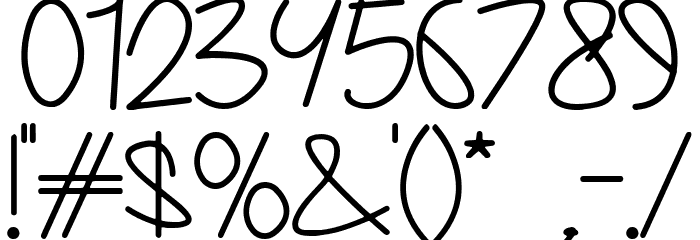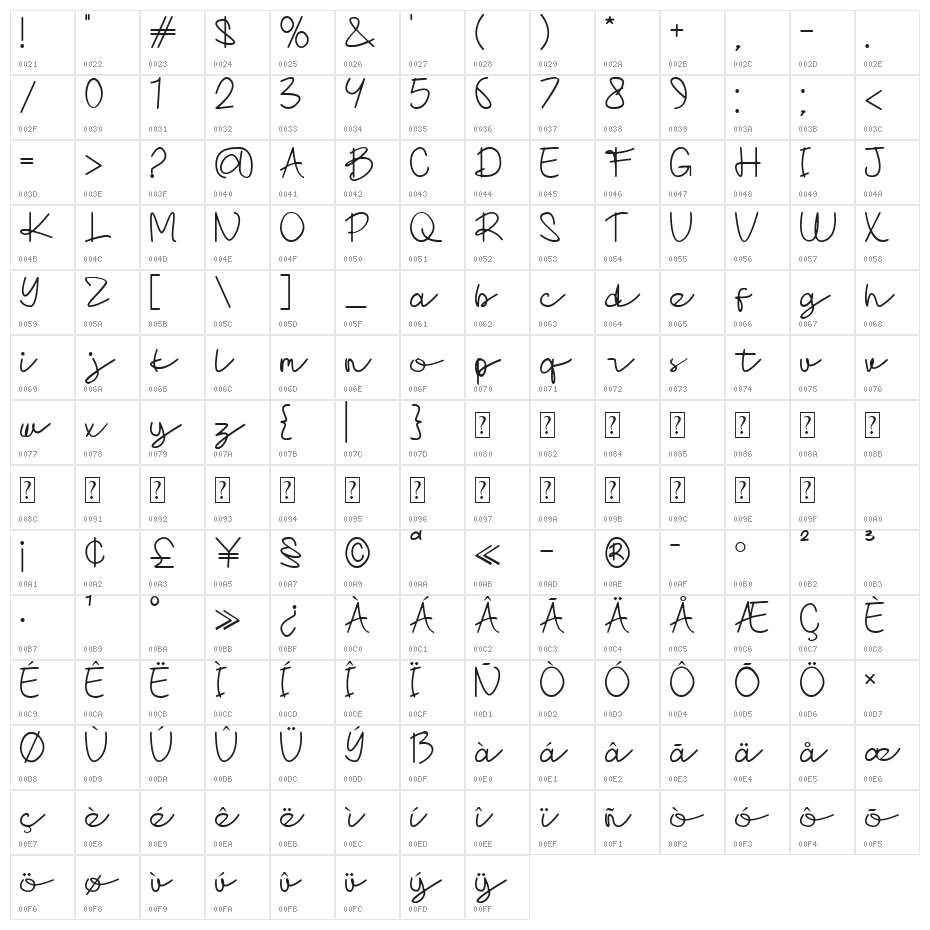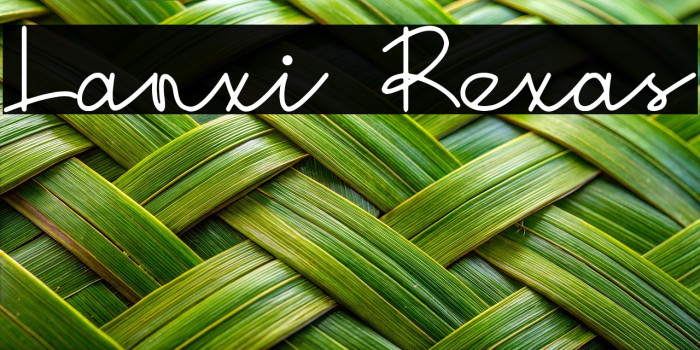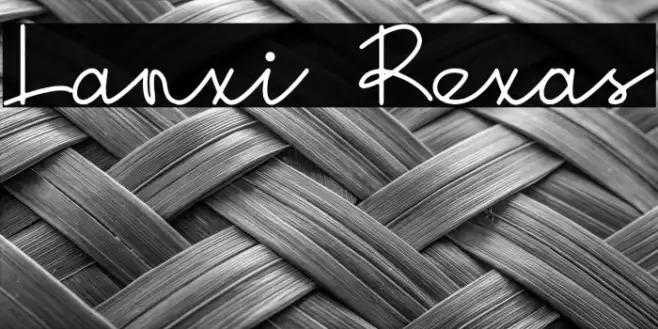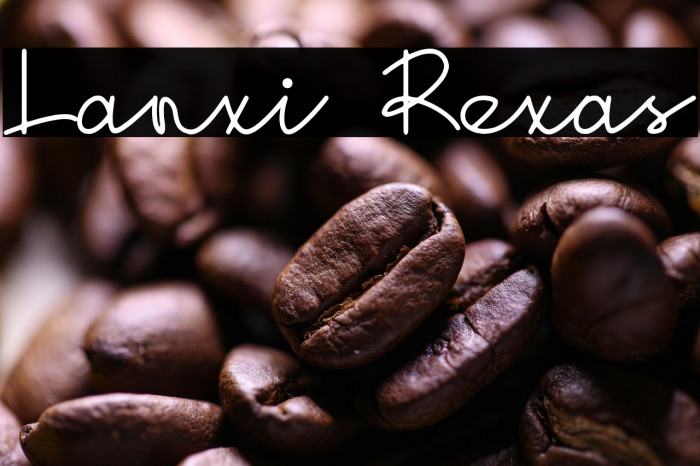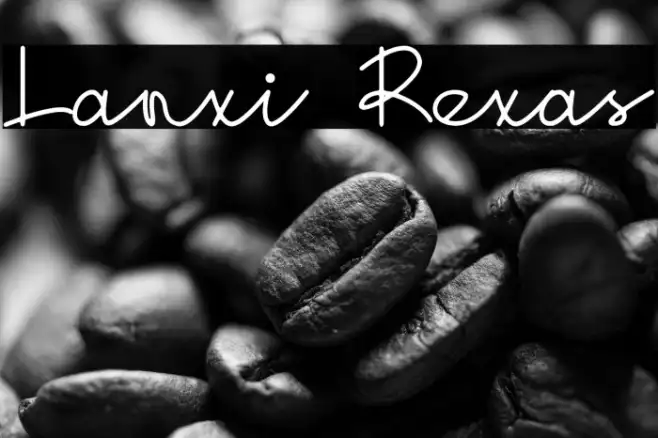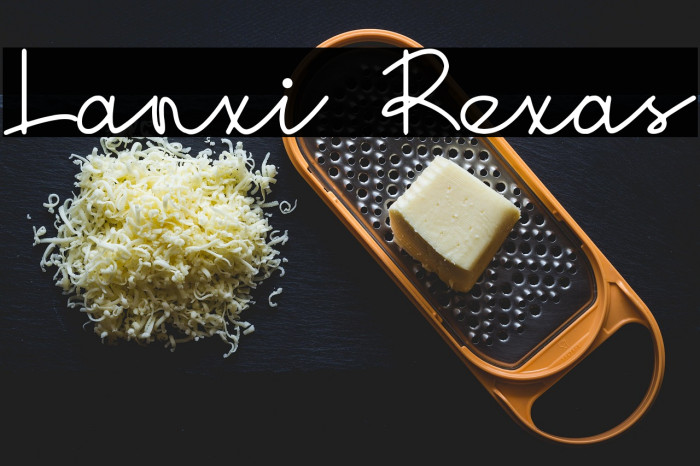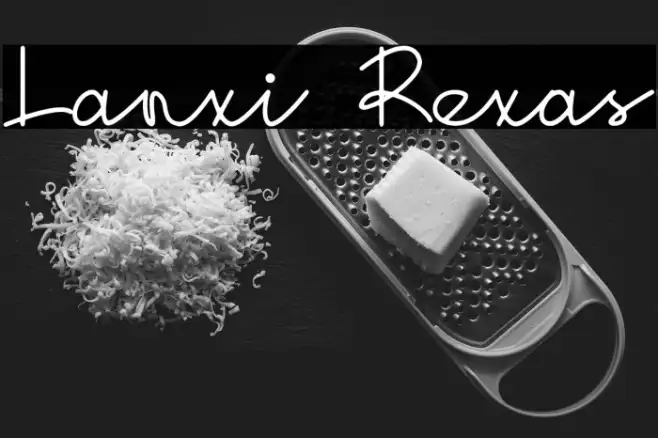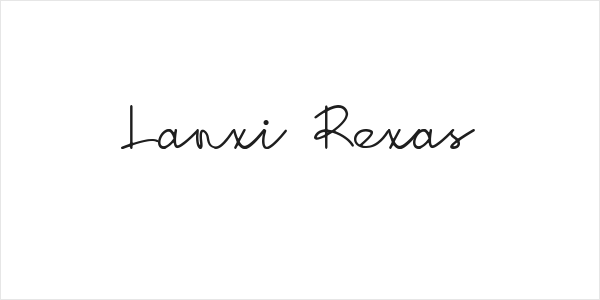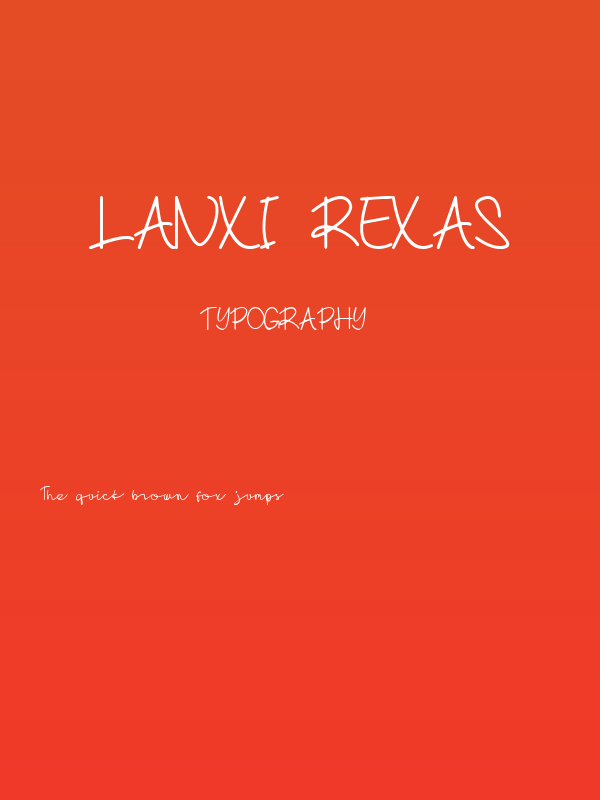
Lanxi Rexas Font
Lanxi Rexas Description
This font features a playful and casual handwritten style, characterized by its fluid and connected strokes. The uppercase letters are bold and slightly irregular, giving a sense of spontaneity and creativity. The lowercase letters maintain a consistent flow, enhancing the handwritten feel. Numbers and special characters are designed with the same playful touch, ensuring a cohesive look across all text elements. The overall appearance is informal yet stylish, making it suitable for projects that require a personal and approachable tone.
| Proposed Projects | Ideal for greeting cards, invitations, personal branding, and creative projects that require a friendly and informal touch. |